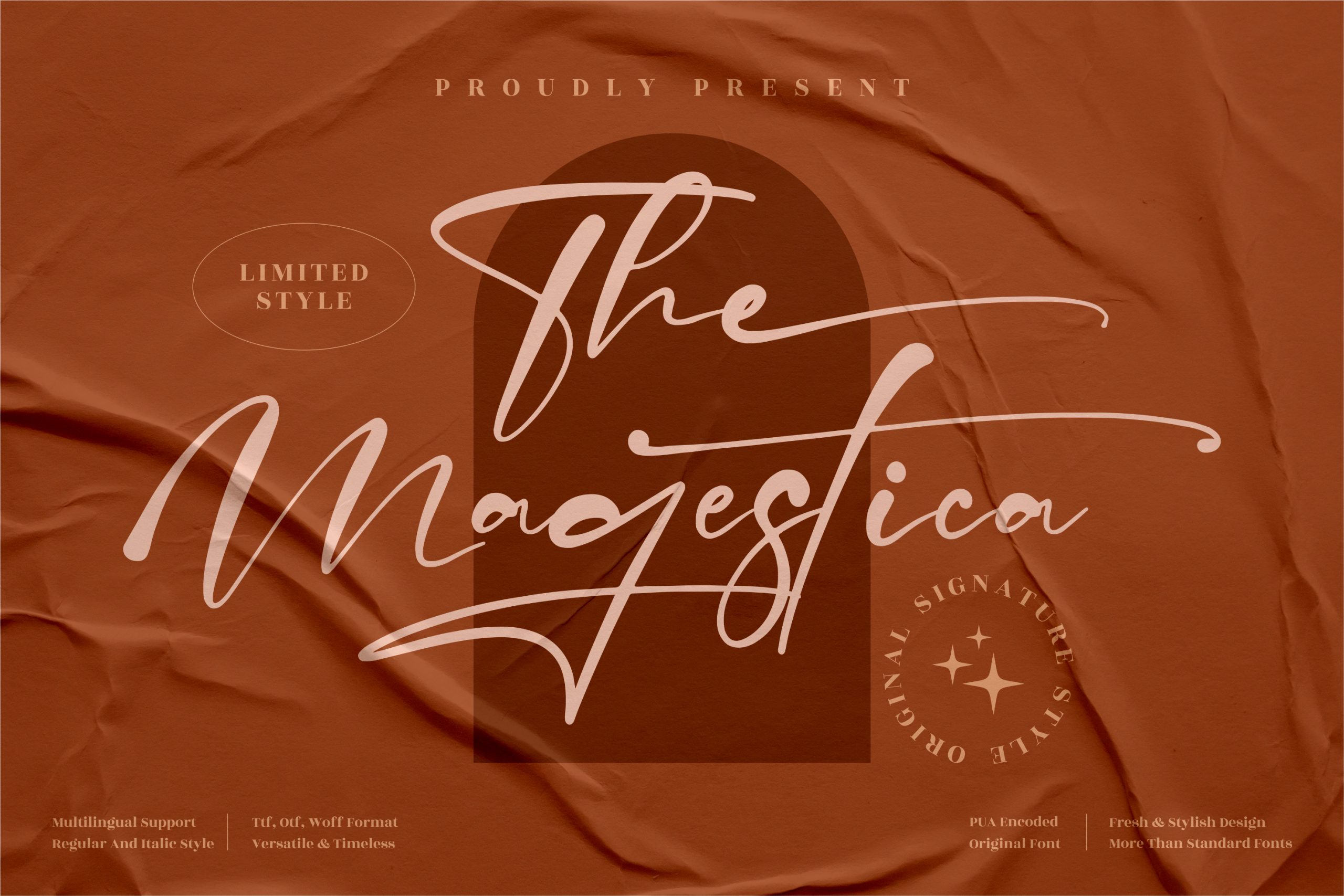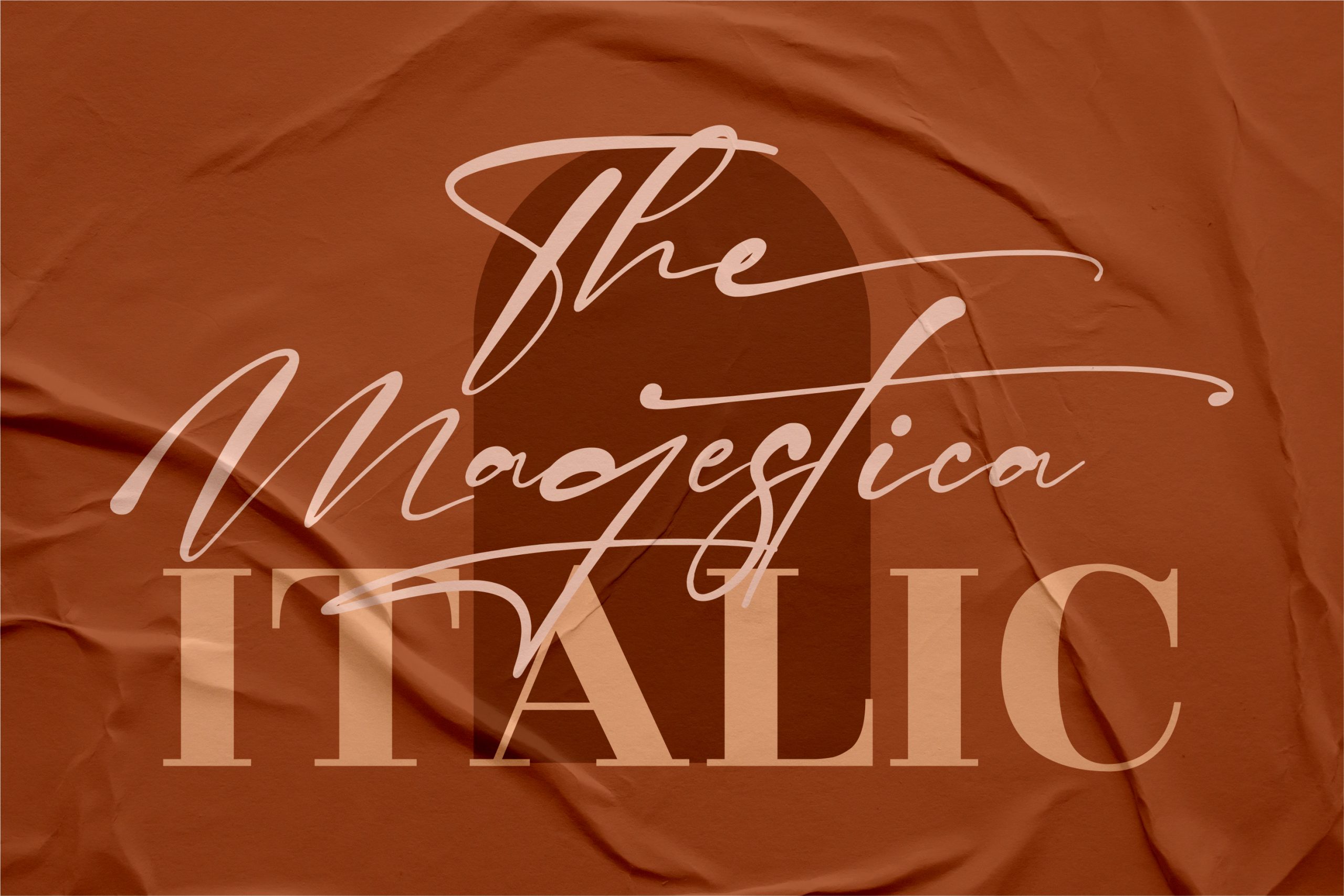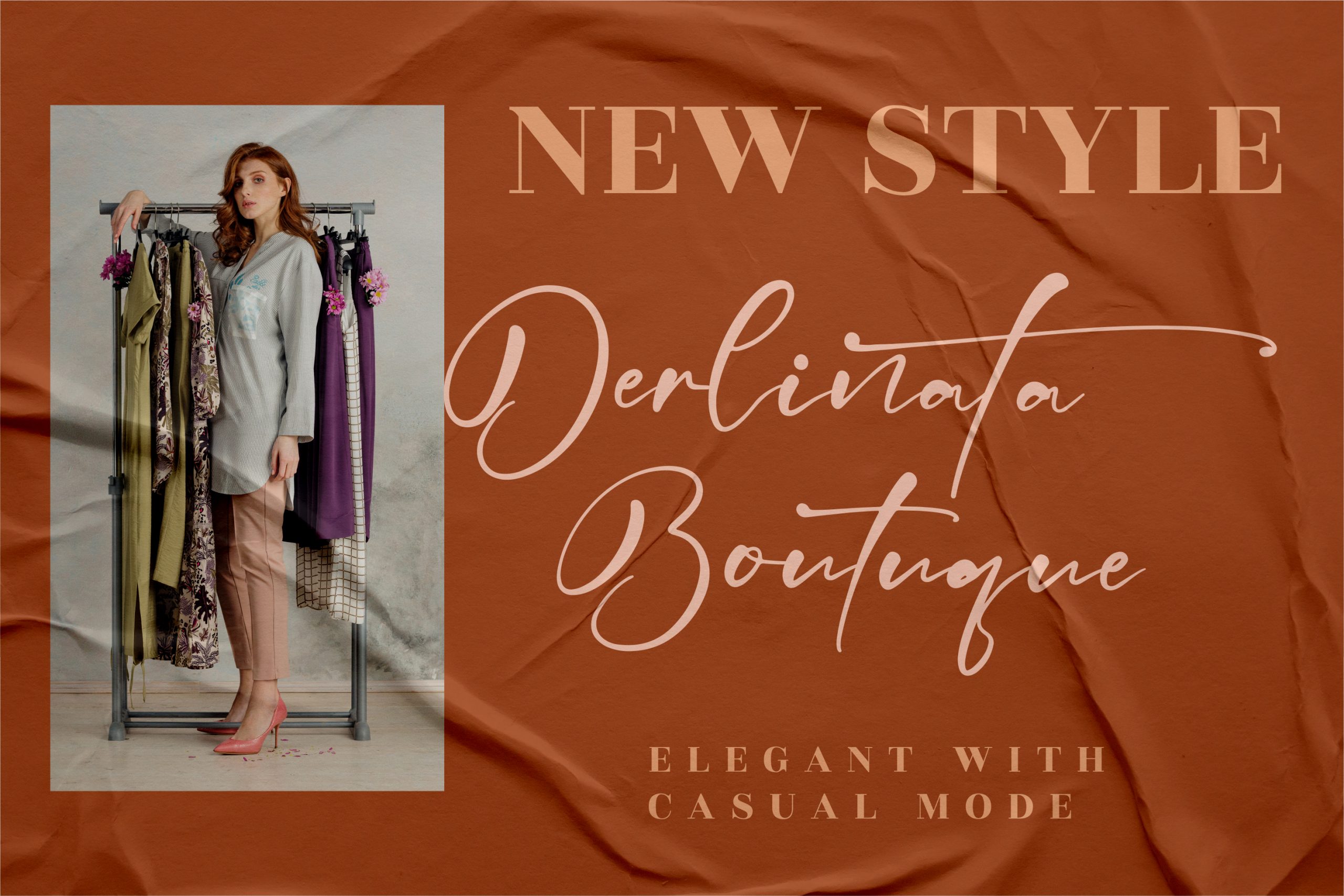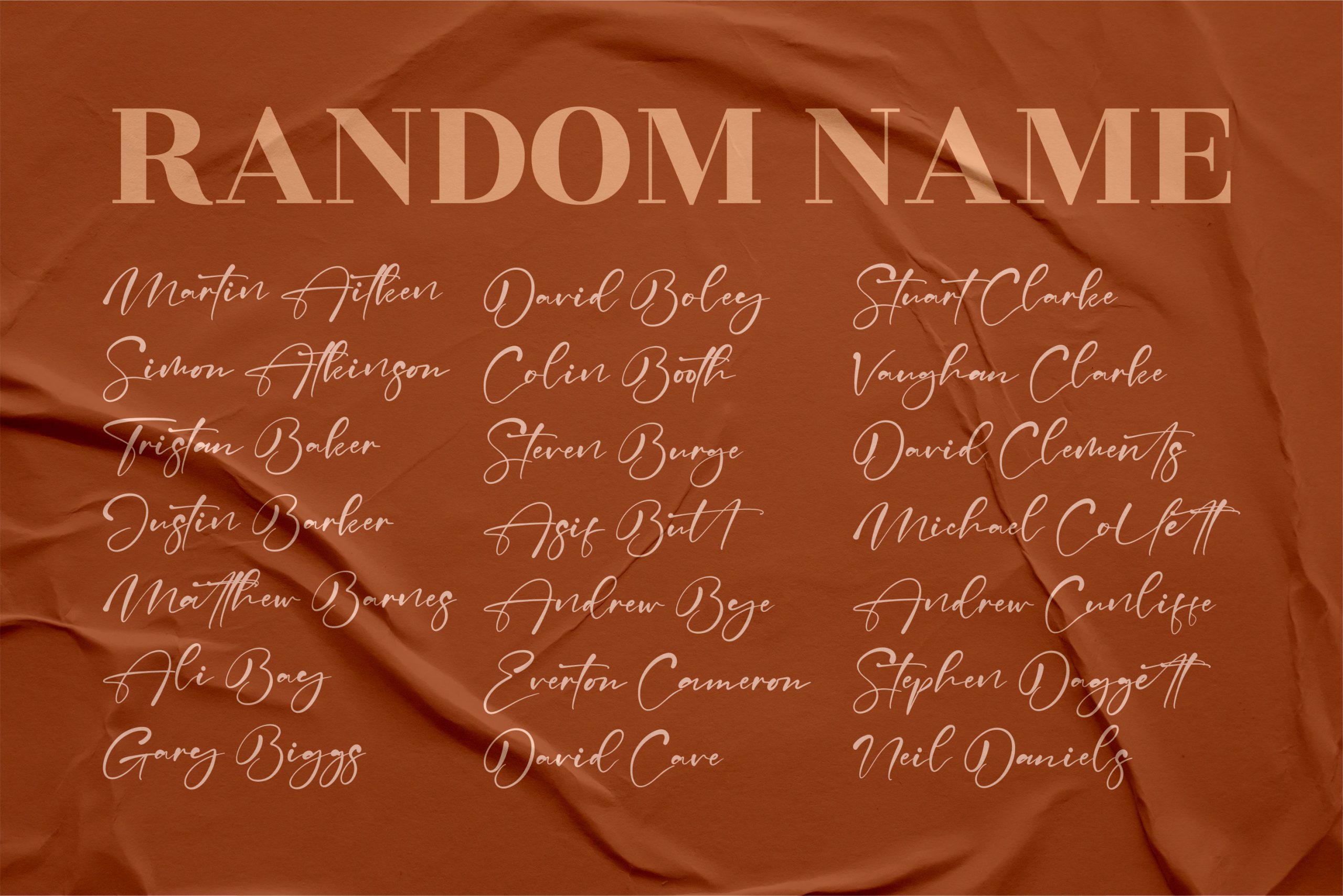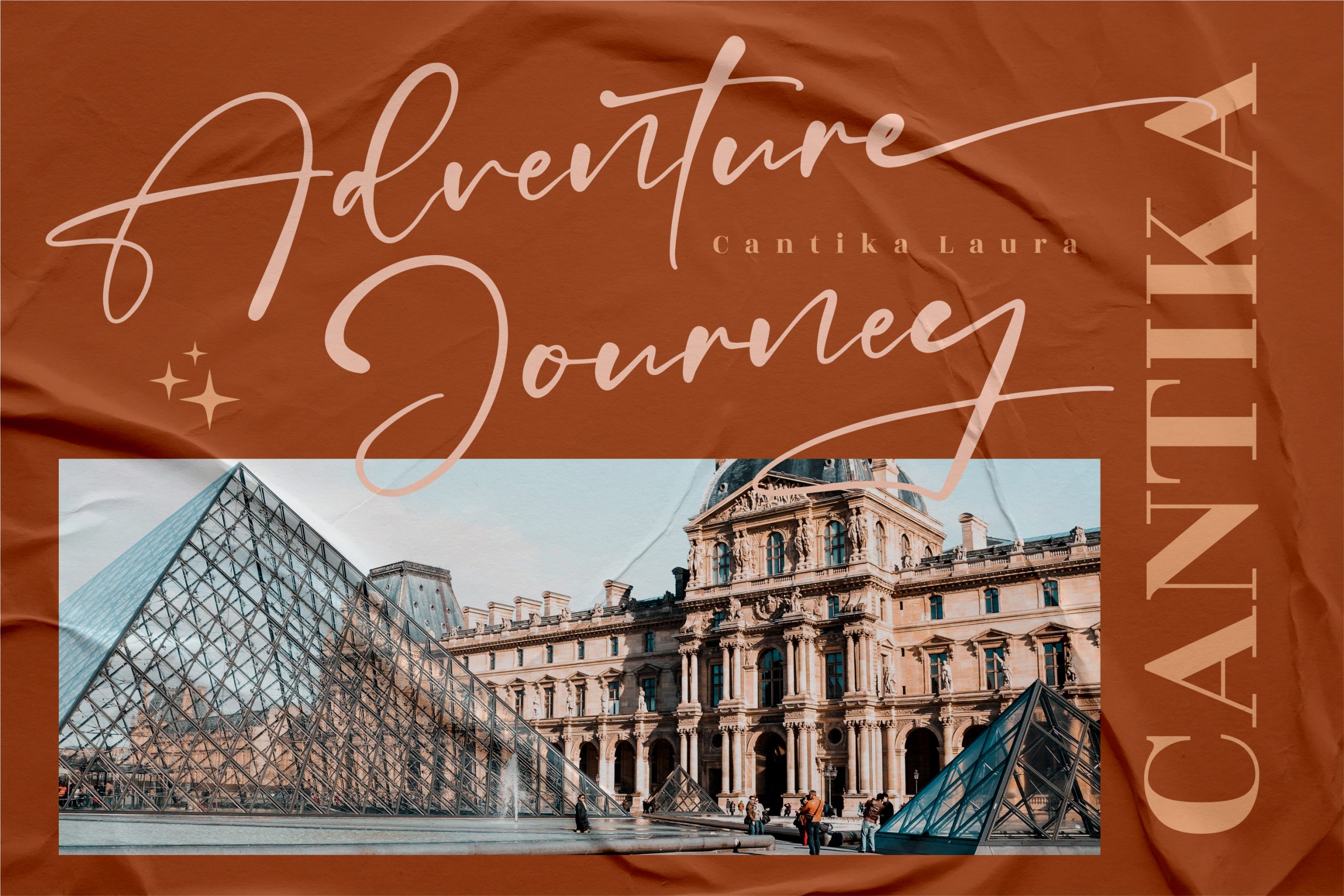
The Magestica Font
The Magestica Font – Stylish Signature Font, from Perspectype Studio, is a premium signature font, suitable for any projects such as: logos, branding projects, homeware designs, product packaging, mugs, quotes, posters, shopping bags, t-shirts, book covers, name card, invitation cards, greeting cards, label, photography, watermark, special events, and all your other luxury projects that need a premium signature taste.